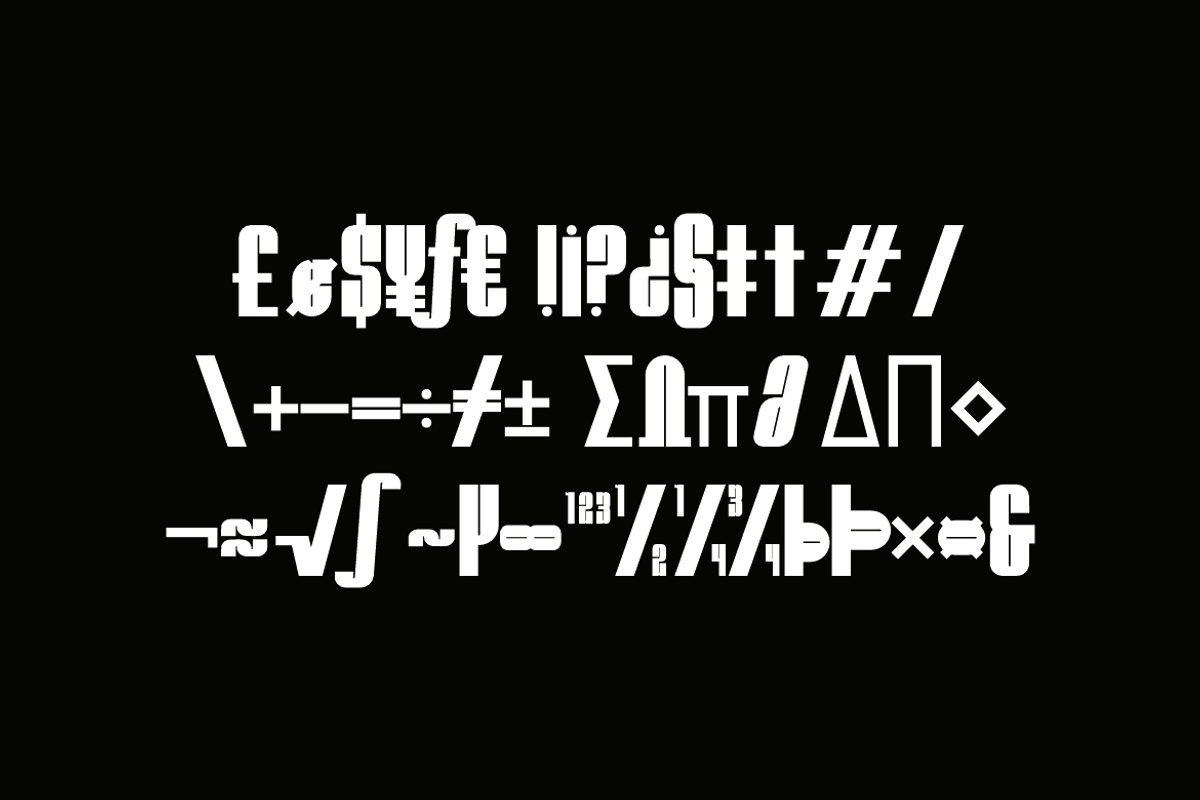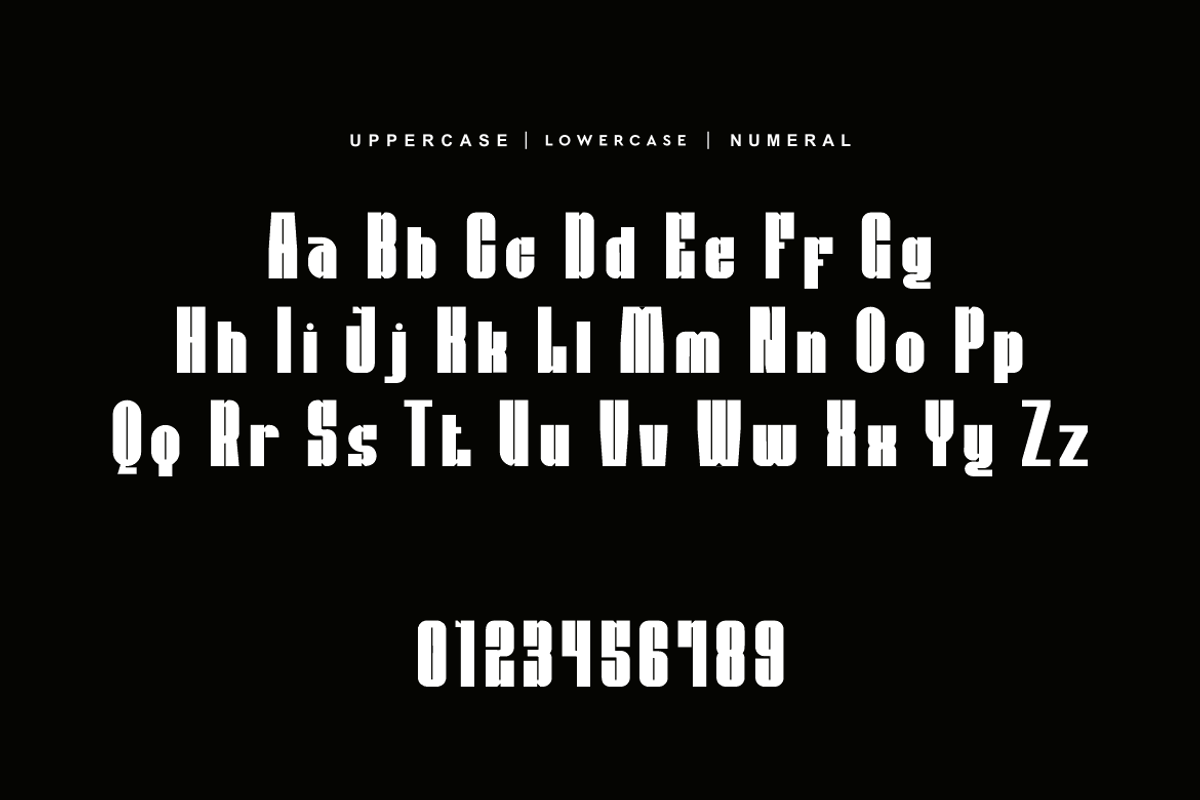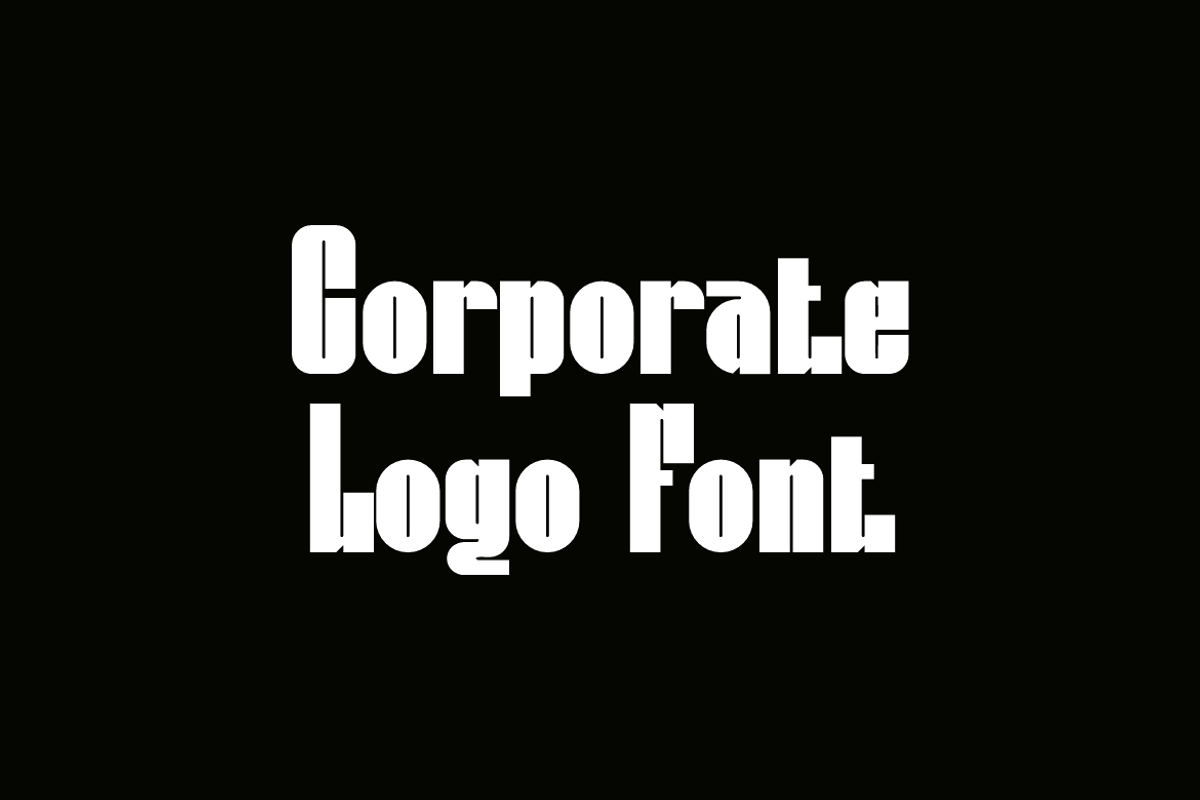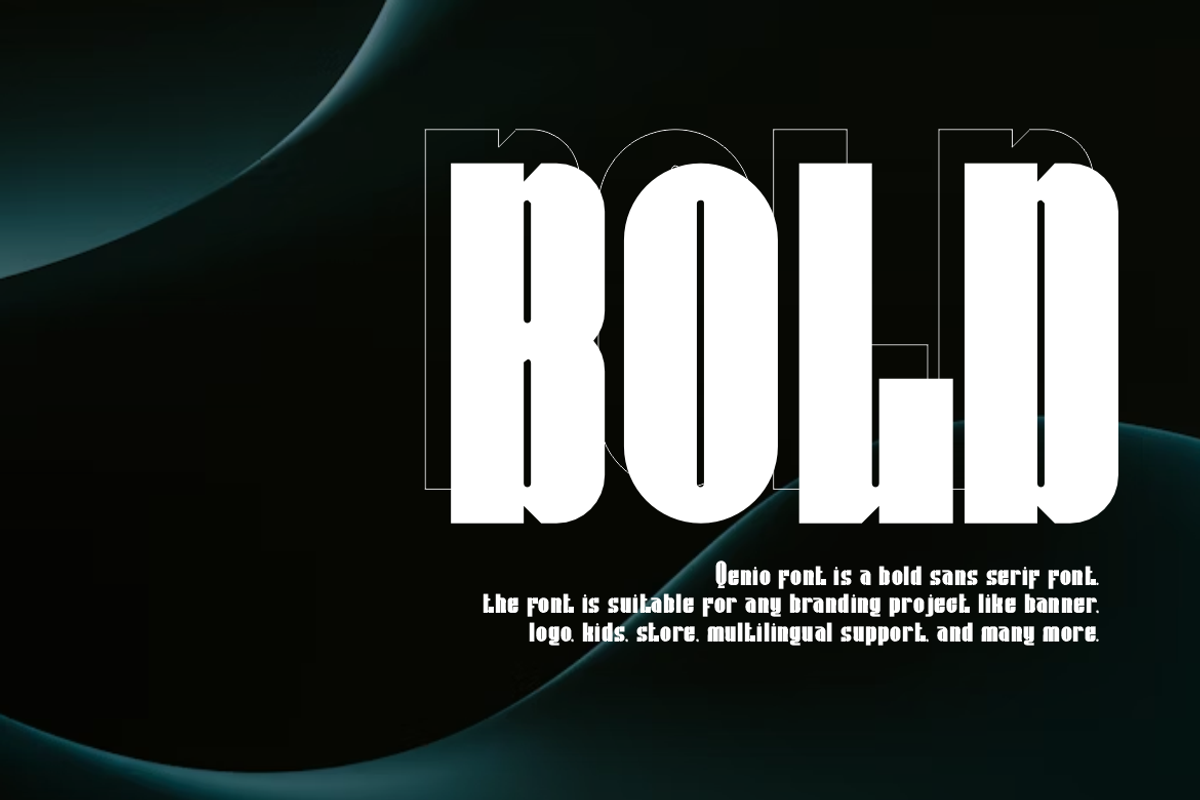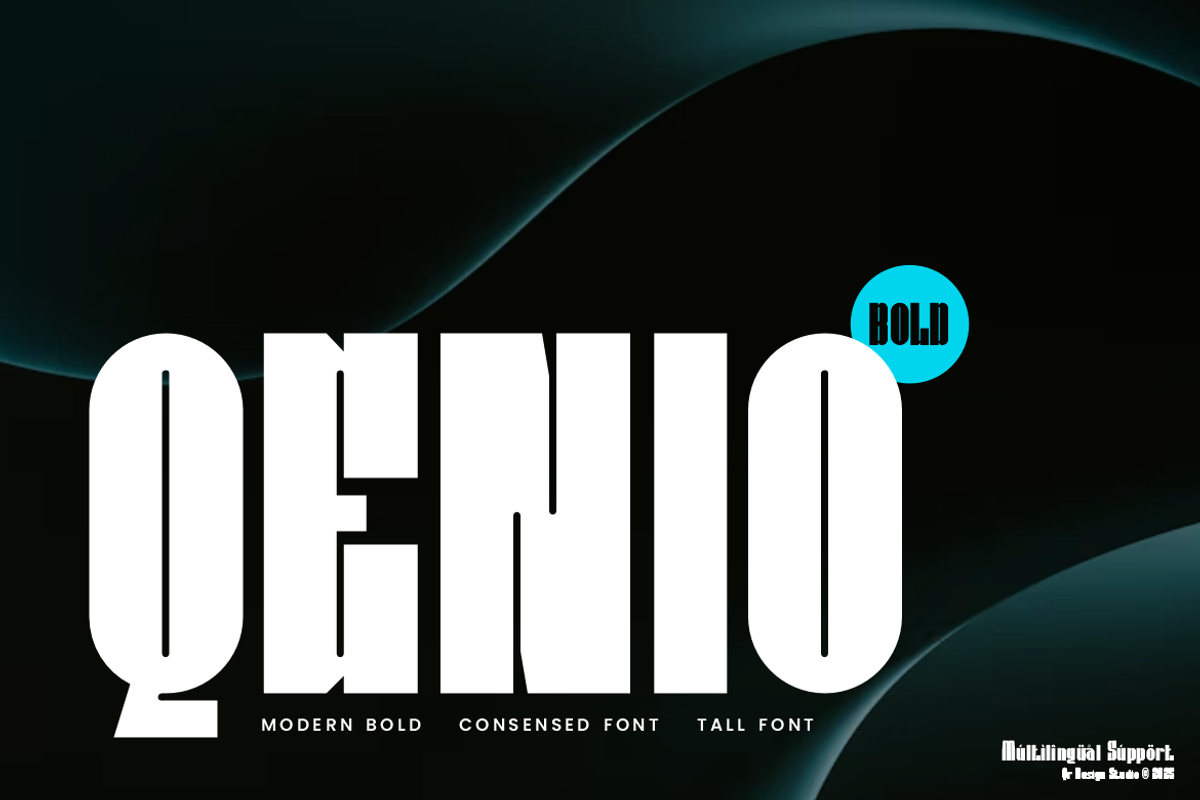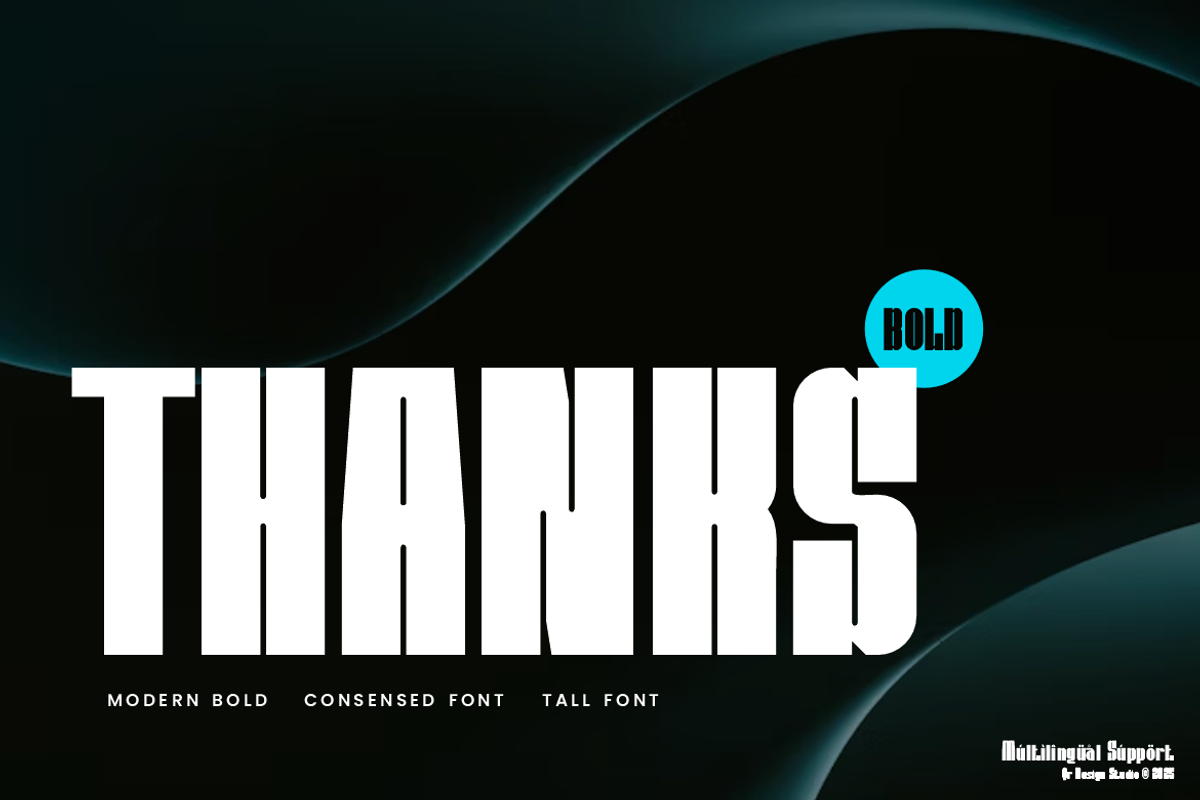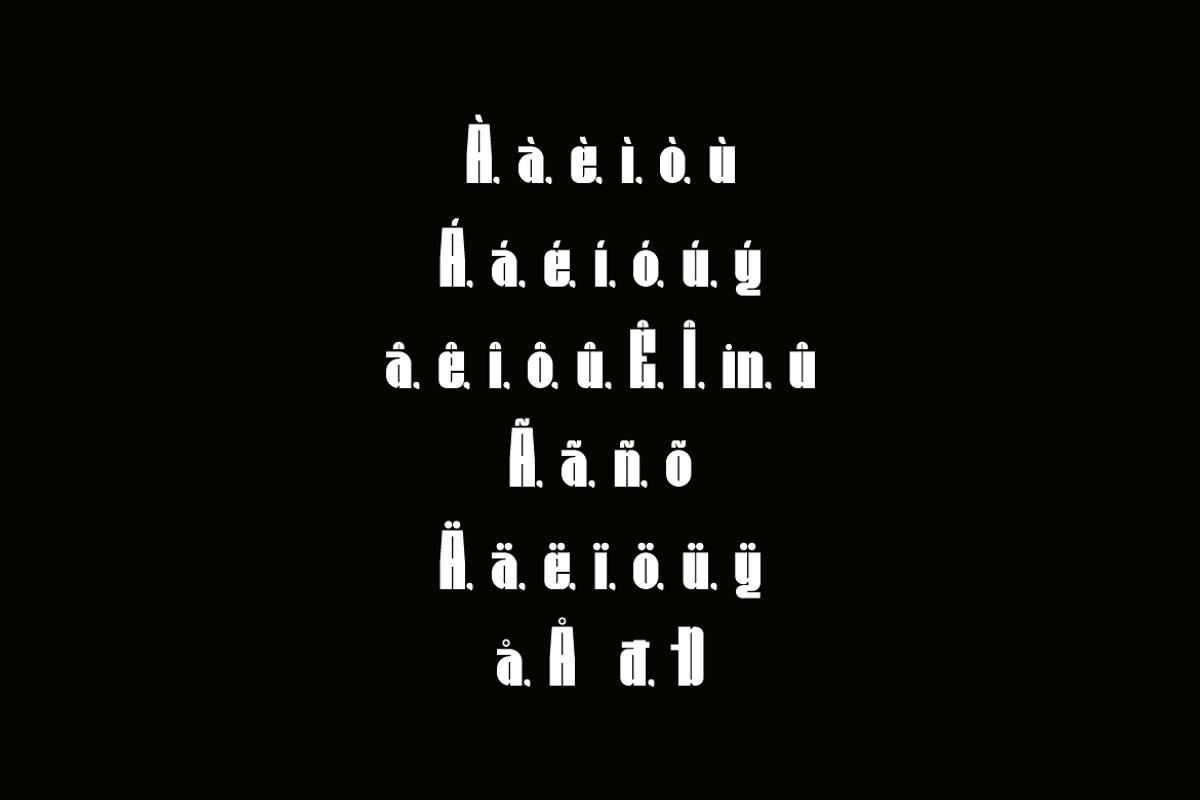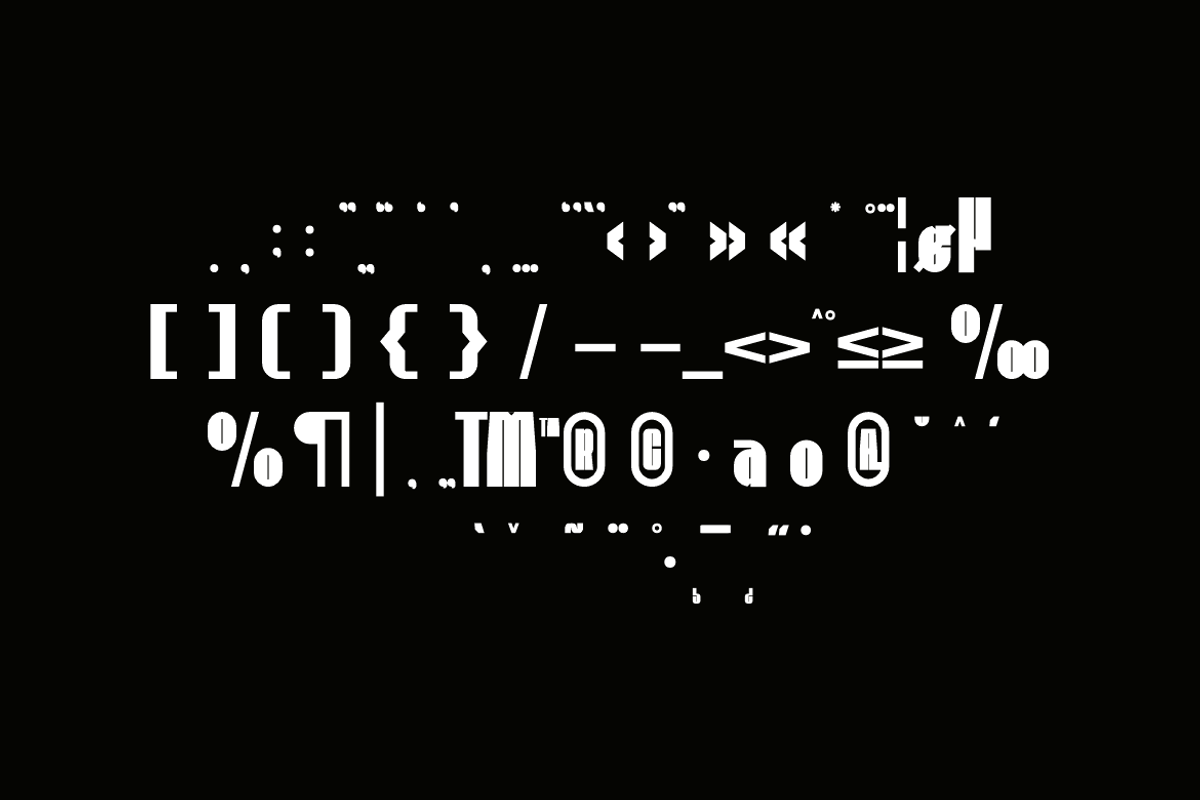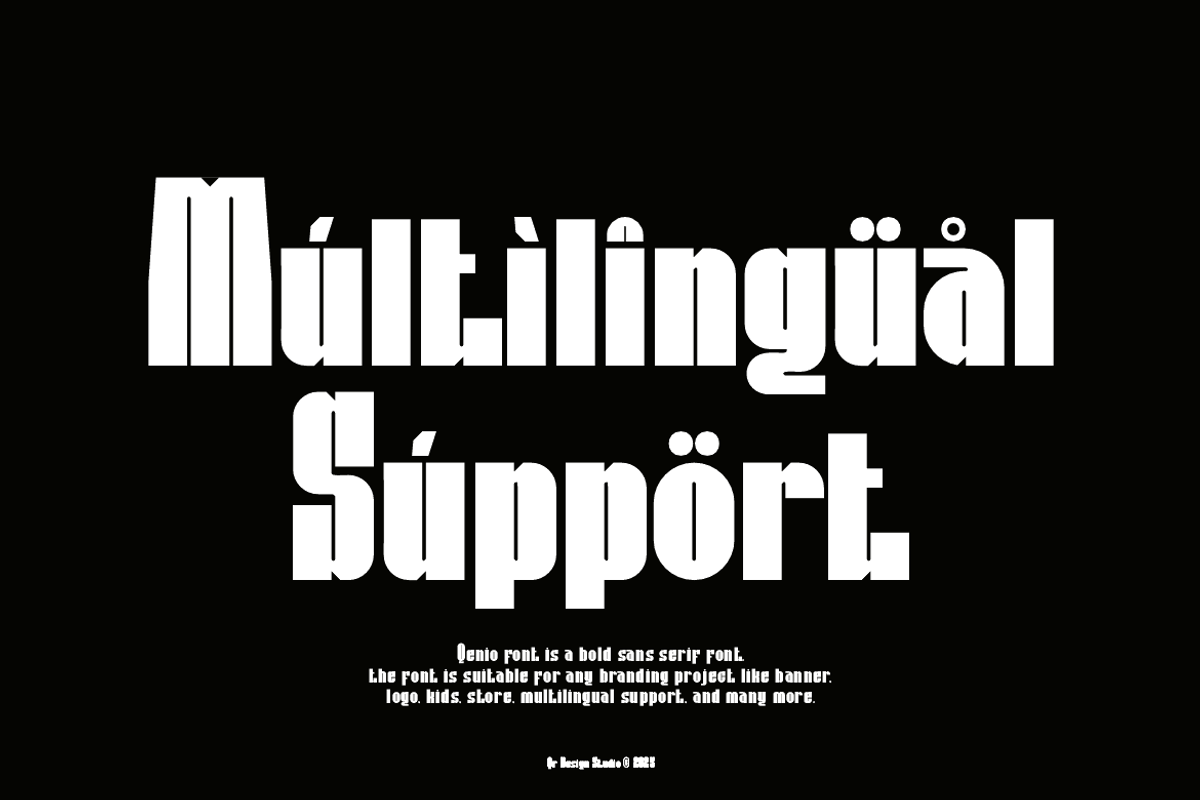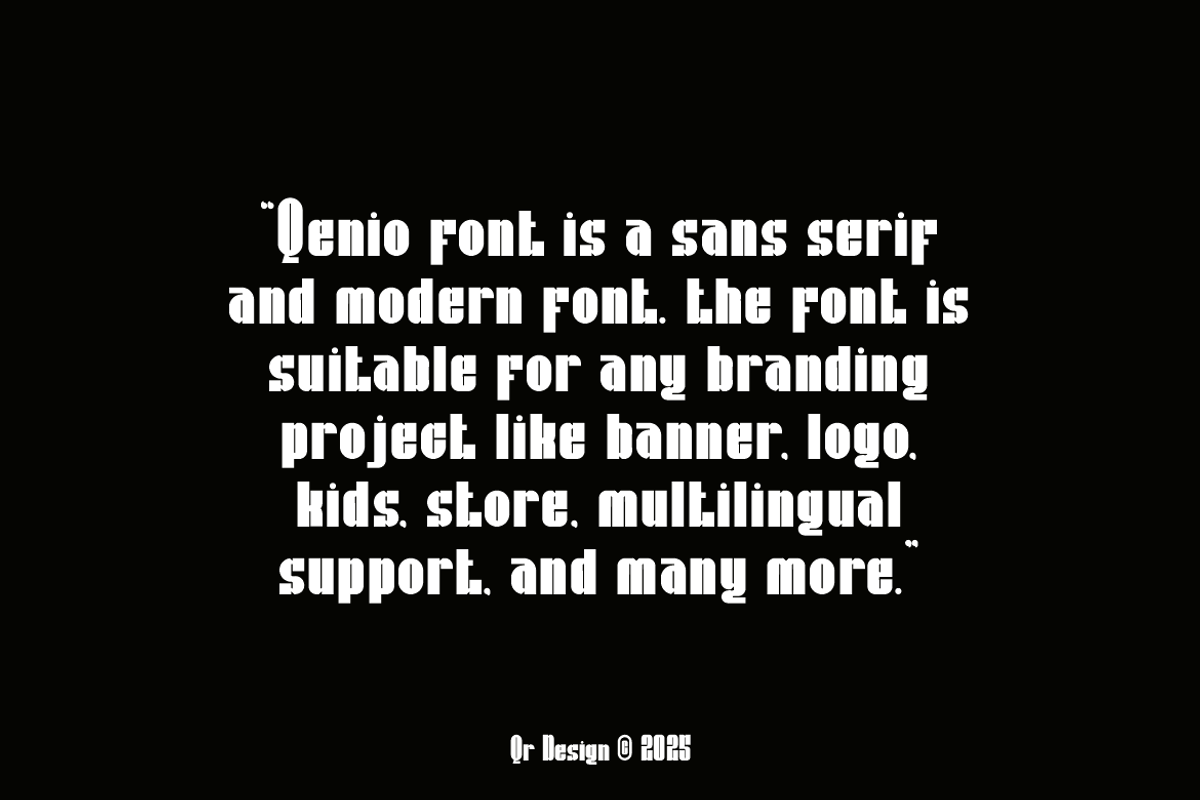
Qenio - Bold Sans Serif Font
Qenio Font is a bold and authentic display font. The font is suitable for any branding project like poster, logo, sport, and many more. Outstanding in a wide range of contexts.